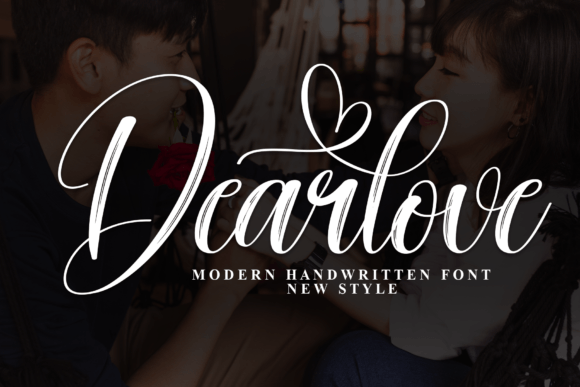
Introducing Dearlove Font: The Sweet and Cursive Handwritten Font for Your Design Needs
Are you looking for a font that can add a touch of sweetness and romance to your designs? Look no further than Dearlove Font, a beautiful and cursive handwritten font that is perfect for a variety of design ideas. In this article, we will explore the features and benefits of Dearlove Font, and how it can elevate your designs to the next level.
What is Dearlove Font?
Dearlove Font is a sweet and cursive handwritten font that is designed to add a touch of warmth and personality to your designs. It is a carefully crafted font that features flowing lines and gentle curves, making it perfect for creating beautiful and eye-catching designs. Whether you’re working on a romantic project, a branding campaign, or simply want to add some personality to your text, Dearlove Font is the perfect choice.
Key Features of Dearlove Font
- Sweet and Cursive Handwritten Style: Dearlove Font features a beautiful, cursive handwritten style that is perfect for adding a touch of elegance and sophistication to your designs.
- Gentle and Flowing Lines: The font features gentle and flowing lines that create a sense of movement and fluidity, making it perfect for creating dynamic and eye-catching designs.
- Highly Versatile: Dearlove Font is highly versatile and can be used on a variety of design projects, from romantic and wedding-themed designs to branding and advertising campaigns.
- Easily Readable: Despite its cursive style, Dearlove Font is easily readable, making it perfect for use in body text and other applications where readability is key.
Benefits of Using Dearlove Font
There are many benefits to using Dearlove Font in your designs. Here are just a few:
- Adds a Touch of Romance and Whimsy: Dearlove Font is perfect for adding a touch of romance and whimsy to your designs. Its sweet and cursive style is sure to capture the hearts of your audience and leave a lasting impression.
- Creates a Personal and Human Touch: The handwritten style of Dearlove Font creates a personal and human touch that is perfect for brands and designers who want to connect with their audience on a more personal level.
- Highly Versatile and Adaptable: Dearlove Font is highly versatile and adaptable, making it perfect for use on a wide range of design projects and applications.
- Easy to Use and Integrate: Dearlove Font is easy to use and integrate into your designs, making it perfect for designers of all skill levels.
Design Ideas Using Dearlove Font
Dearlove Font is a highly versatile font that can be used on a wide range of design projects and applications. Here are a few design ideas to get you started:
- Wedding and Romance-Themed Designs: Dearlove Font is perfect for wedding and romance-themed designs, such as wedding invitations, save-the-date cards, and romantic posters.
- Branding and Packaging Design: The font is also perfect for branding and packaging design, where its sweet and cursive style can help to create a personal and human touch.
- Social Media Graphics and Posts: Dearlove Font can also be used to create eye-catching social media graphics and posts that are sure to capture the attention of your audience.
- Stationery and Paper Products: The font is also perfect for use on stationery and paper products, such as greeting cards, invitations, and letterhead.
Tips for Using Dearlove Font
Here are a few tips for using Dearlove Font in your designs:
- Pair with Bold and Simple Fonts: Dearlove Font pairs perfectly with bold and simple fonts, which can help to create a striking contrast and make your designs stand out.
- Use on High-Quality Backgrounds: The font looks best on high-quality backgrounds that feature soft and pastel colors, which can help to create a romantic and whimsical atmosphere.
- Experiment with Different Sizes and Colors: Don’t be afraid to experiment with different sizes and colors of Dearlove Font to create a unique and eye-catching design.
In conclusion, Dearlove Font is a beautiful and versatile font that is perfect for adding a touch of sweetness and romance to your designs. Its sweet and cursive handwritten style, gentle and flowing lines, and highly versatile nature make it perfect for use on a wide range of design projects and applications. Whether you’re working on a romantic project, a branding campaign, or simply want to add some personality to your text, Dearlove Font is the perfect choice.